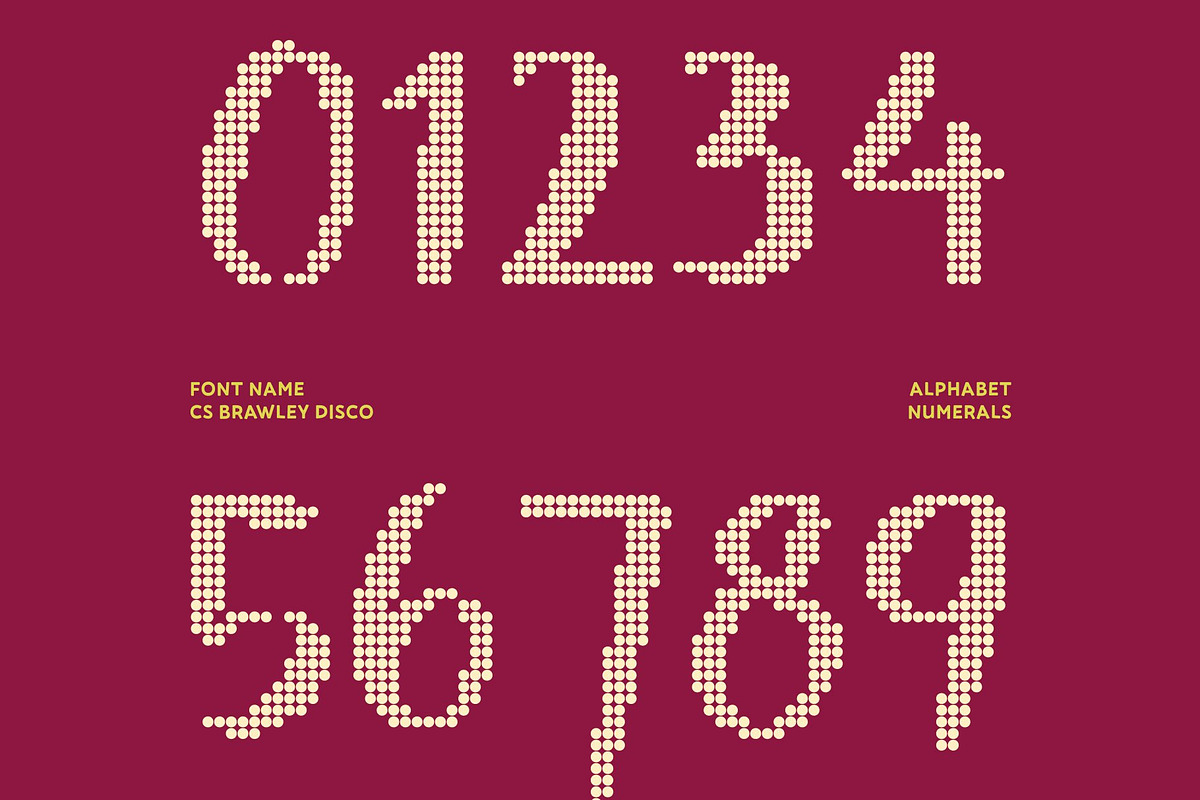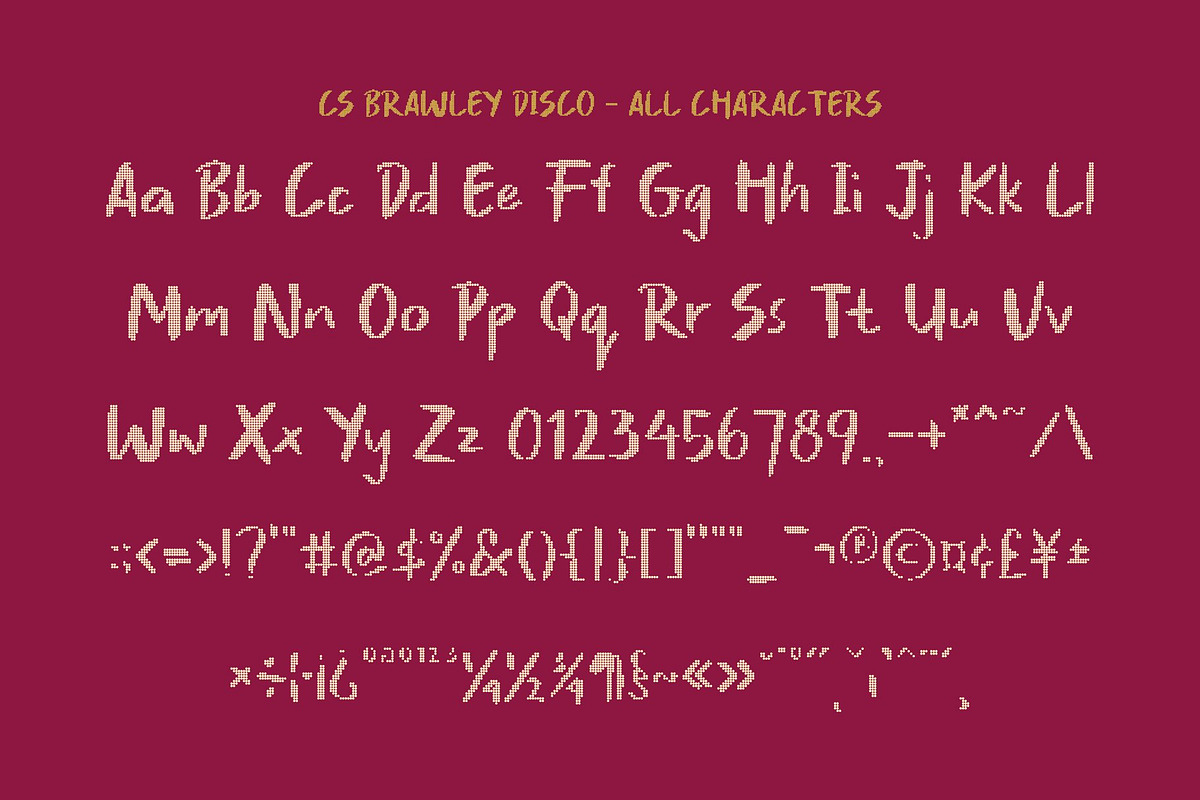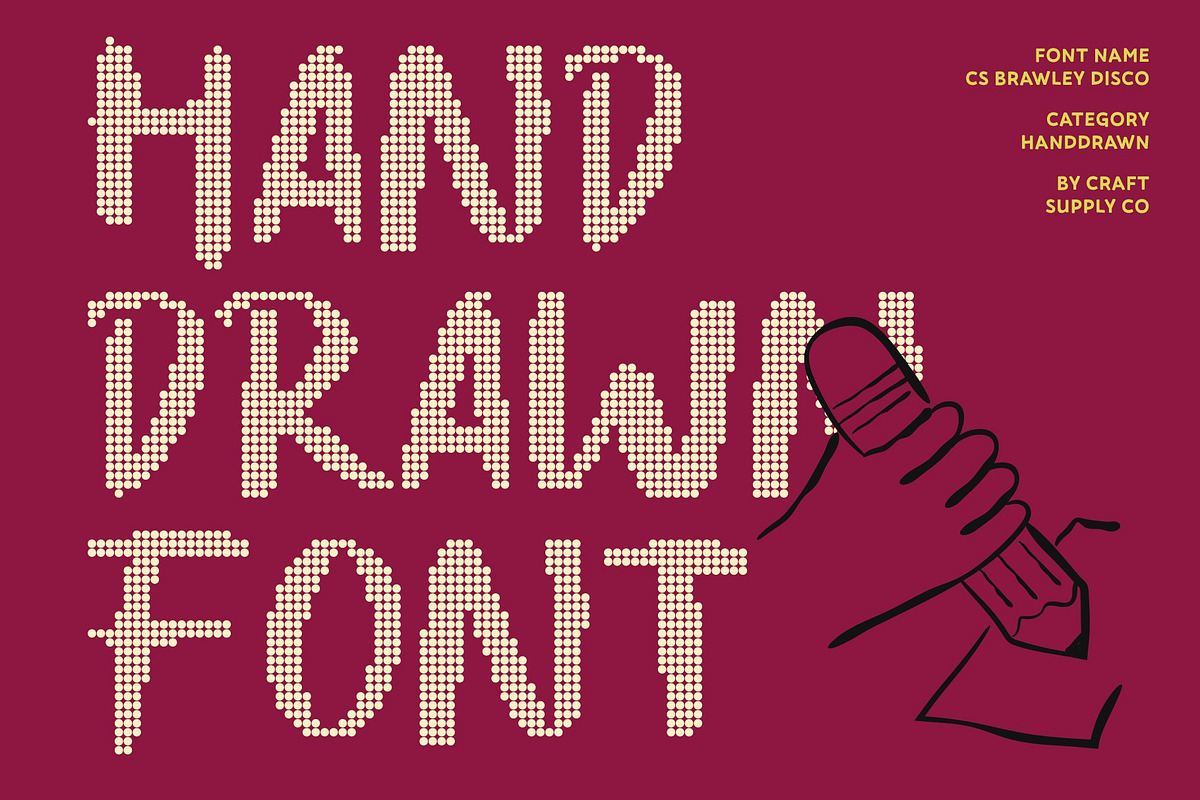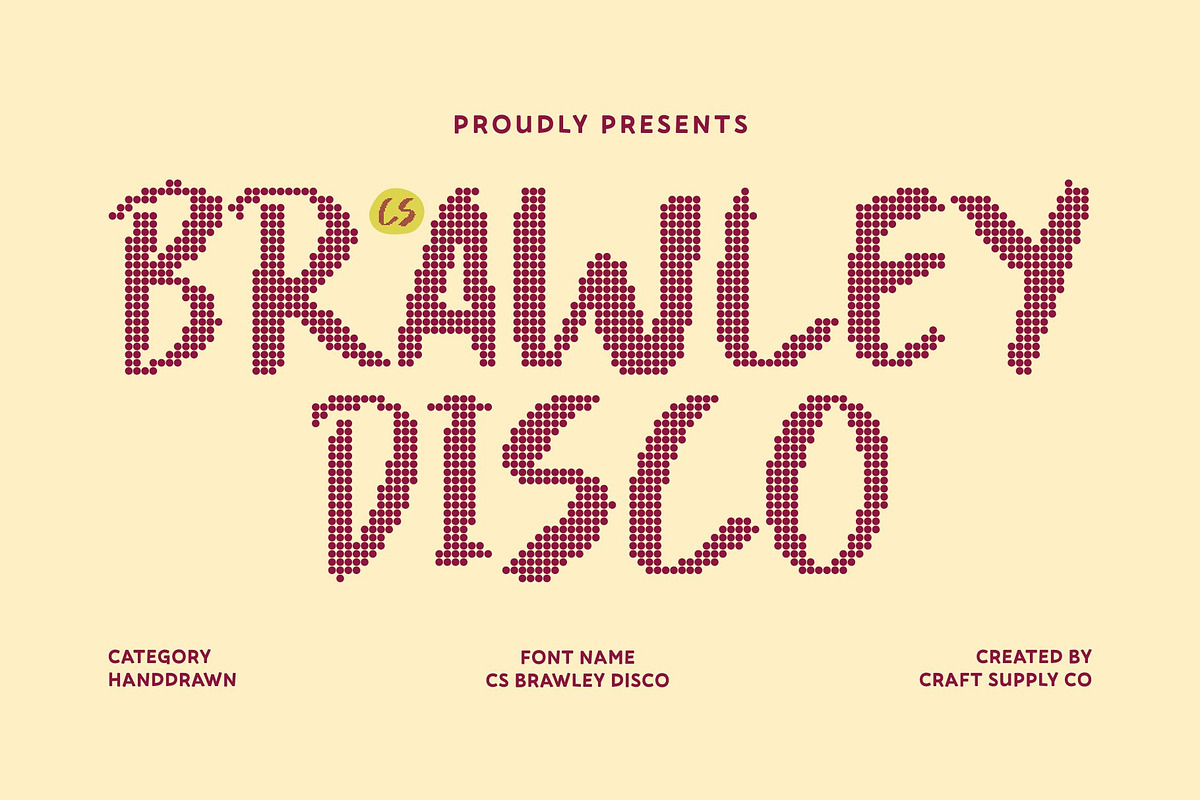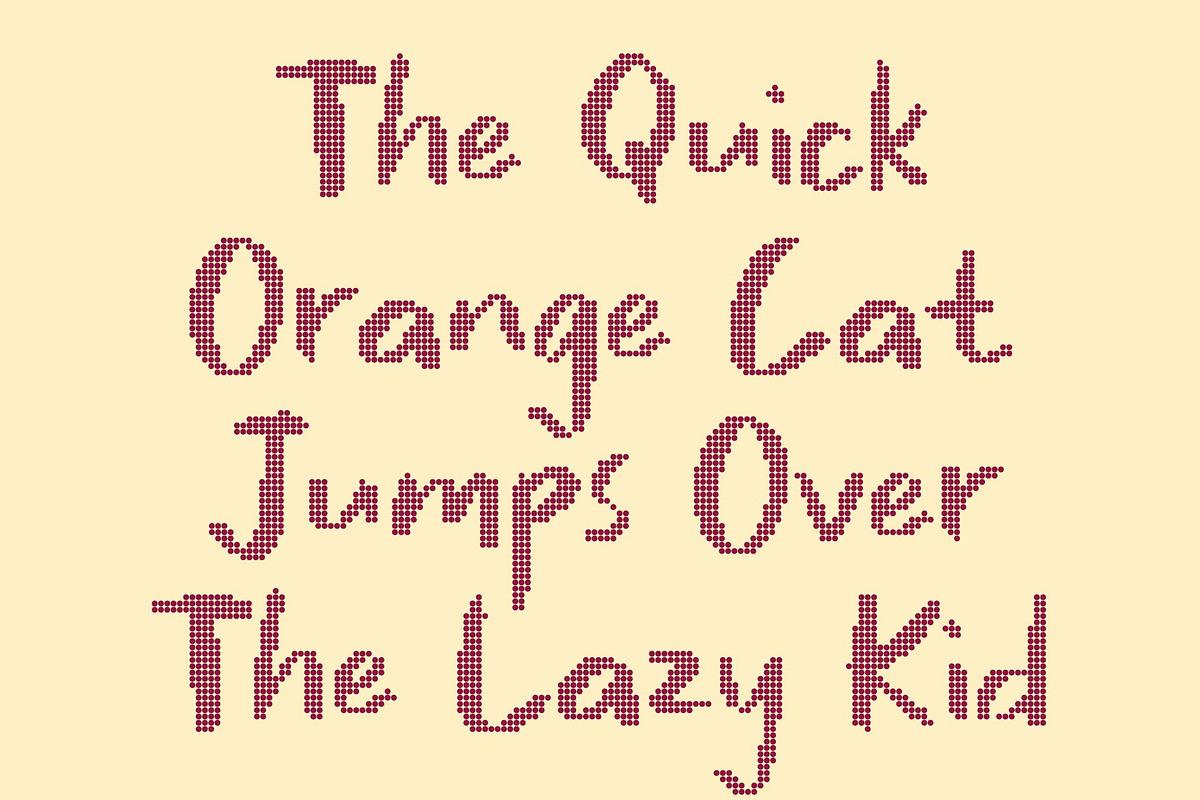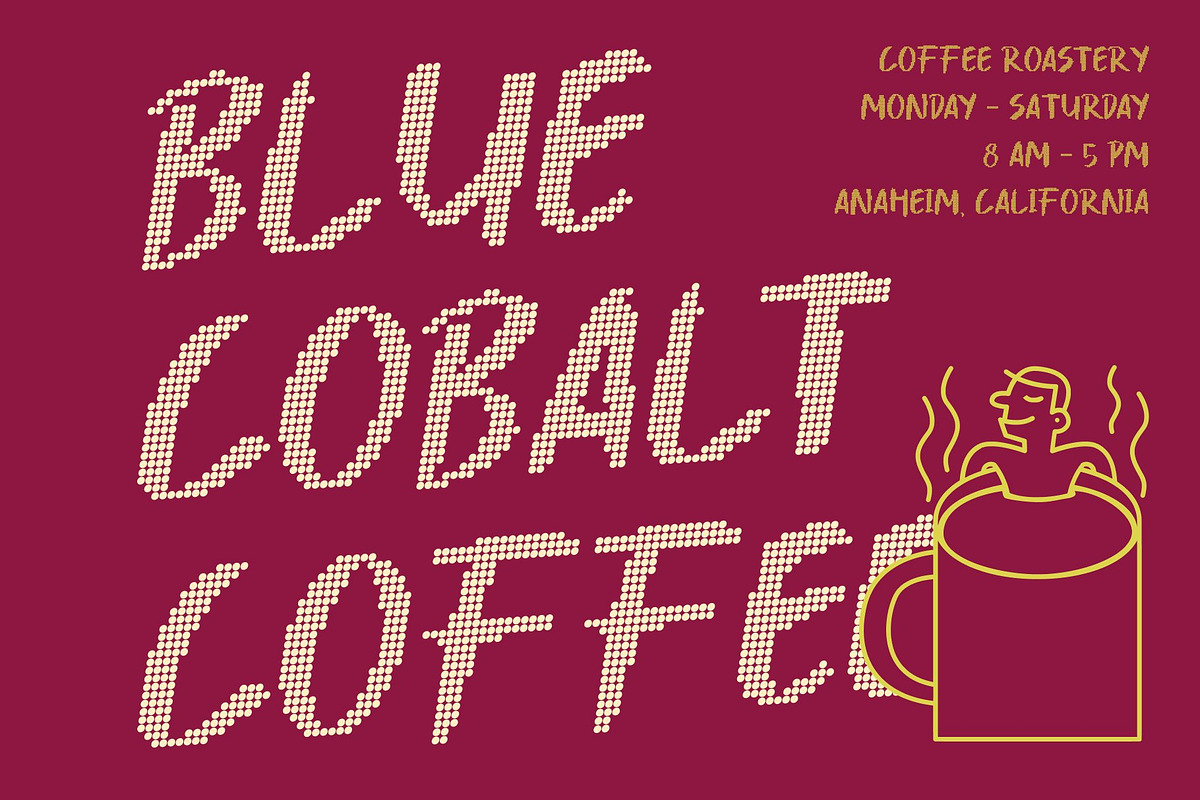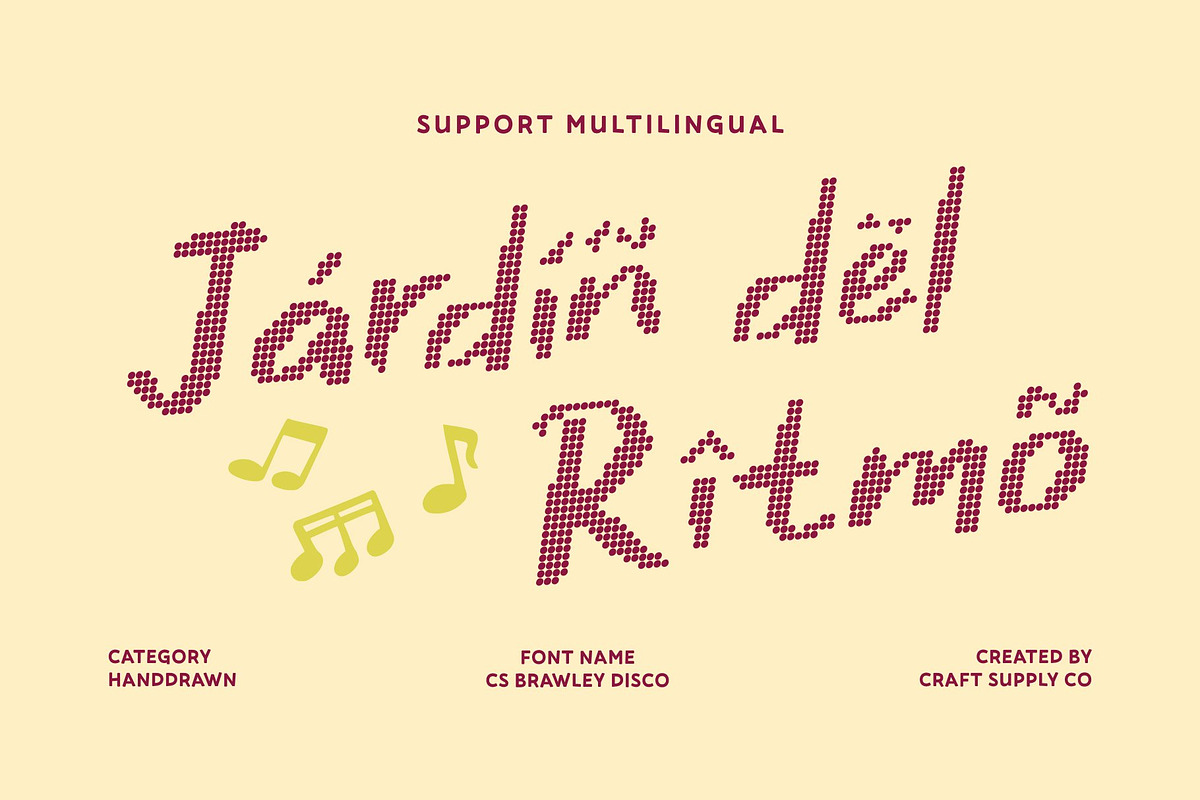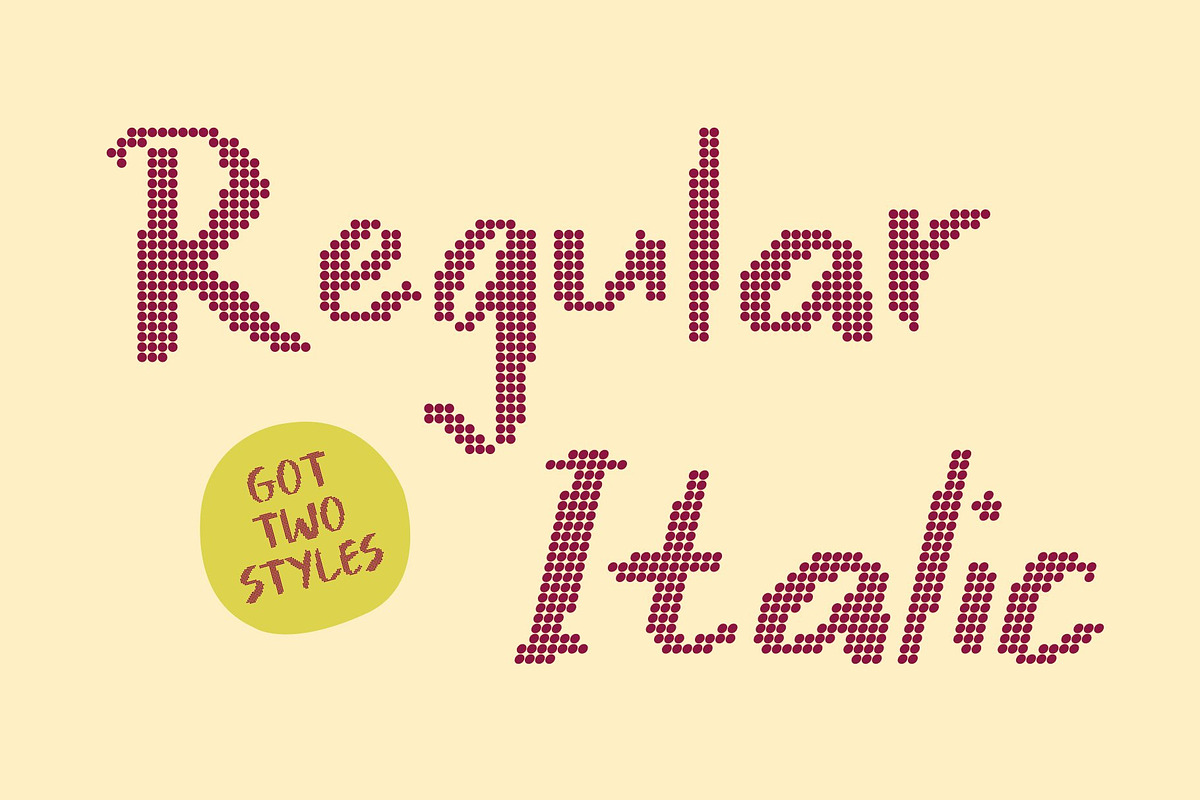
CS Brawley Disco
CS Brawley Disco – Bold Expression with Handcrafted Groove
Marker Style with Disco Attitude This is a bold marker-style sans serif font that blends clean modern structure with the vibrant spirit of the dance floor. Its confident strokes feel hand-drawn and expressive, capturing the raw energy of a marker line now amplified with disco flair. Every letter pulses with rhythm, turning simple words into statements full of personality and movement.
Handcrafted Texture with Electric Energy Each character carries a subtle organic texture that mirrors authentic handwriting, adding depth and visual richness. This handcrafted detail brings warmth and individuality, while the disco-inspired bounce adds a sense of excitement and glow. The result is a font that feels dynamic, lively, and ready to shine in both print and digital designs.
Modern Structure with Rhythmic Flow Built on a clean sans serif foundation, maintains clarity and legibility while radiating creative spontaneity. The balance between structured form and expressive stroke creates a powerful visual groove perfect for headlines, logos, posters, or branding that demands attention. It’s bold, energetic, and effortlessly stylish.
Perfect for Vibrant Branding and Party-Ready Designs From editorial layouts and music-themed graphics to event promotions, fashion branding, and social media content, delivers confidence with a playful twist. Its marker-inspired strokes and lively rhythm reflect the glamour, energy, and celebration of disco culture making every design feel bold, cheerful, and unforgettable.
CS Brawley Disco Regular
CS Brawley Disco Italic